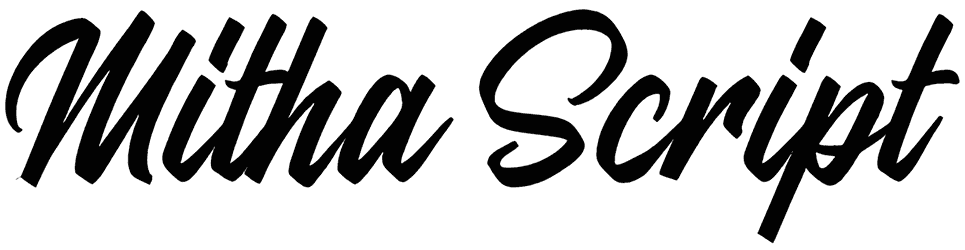
Mitha Script Font
This cursive brush font is something new that can be stirring and energetic. This script font brings a fun and dynamic feel to your design, so it can be fruitful for a multitude of various requirements. Mitha Script font, thanks to its specific vibes, goes great for the music box, logotypes, advertising, and toy packaging.